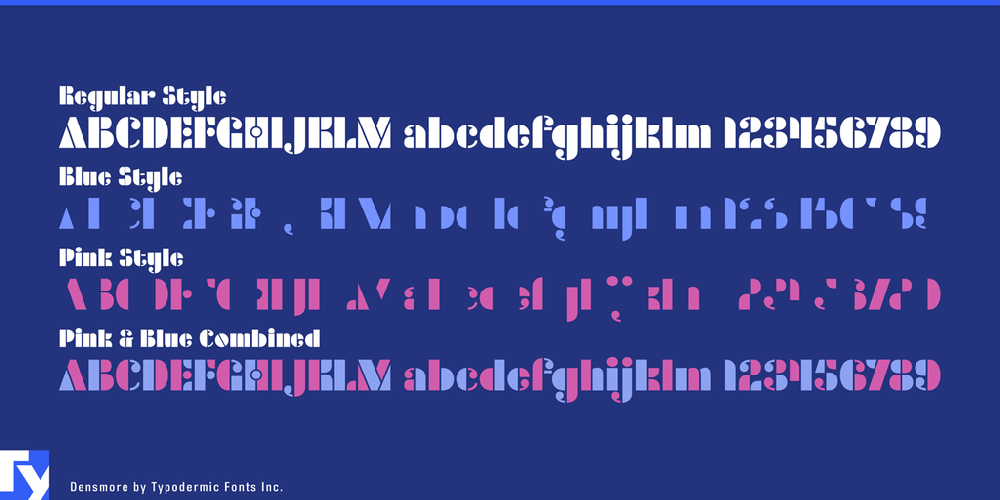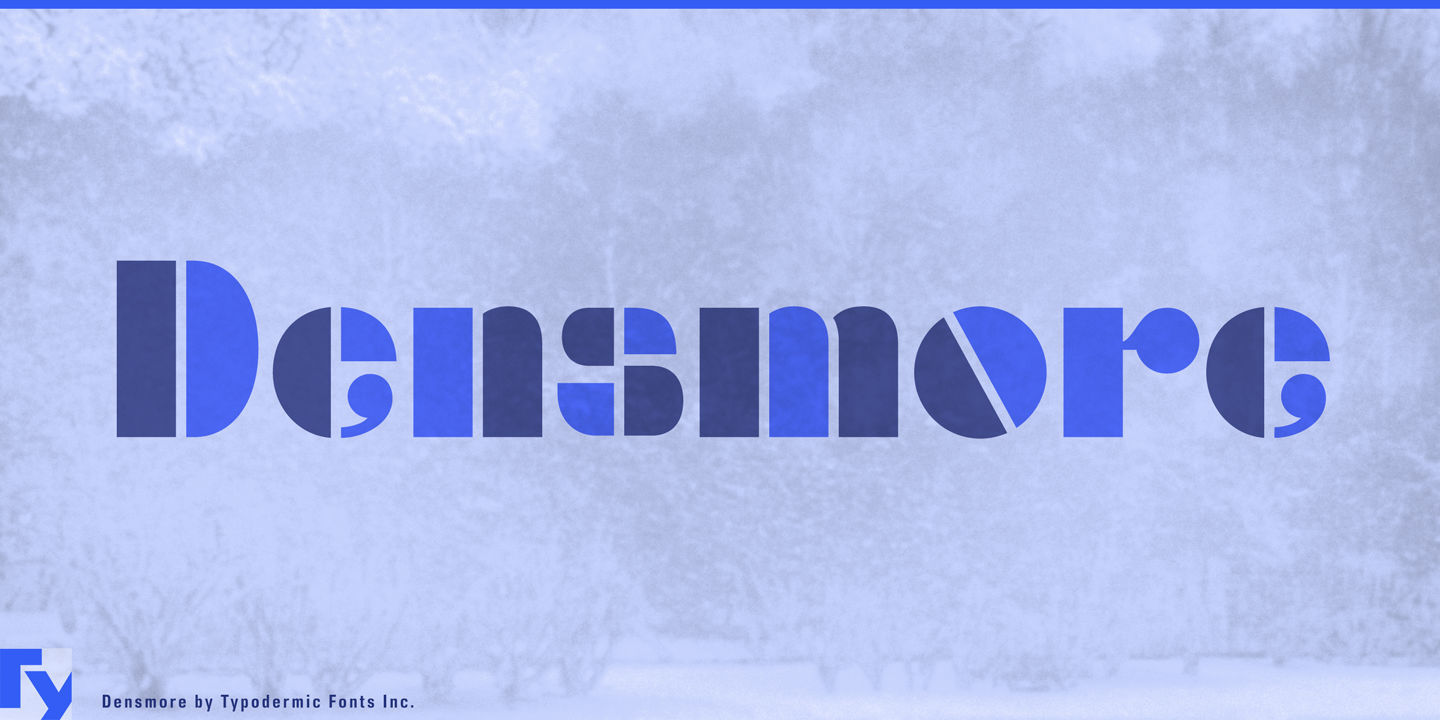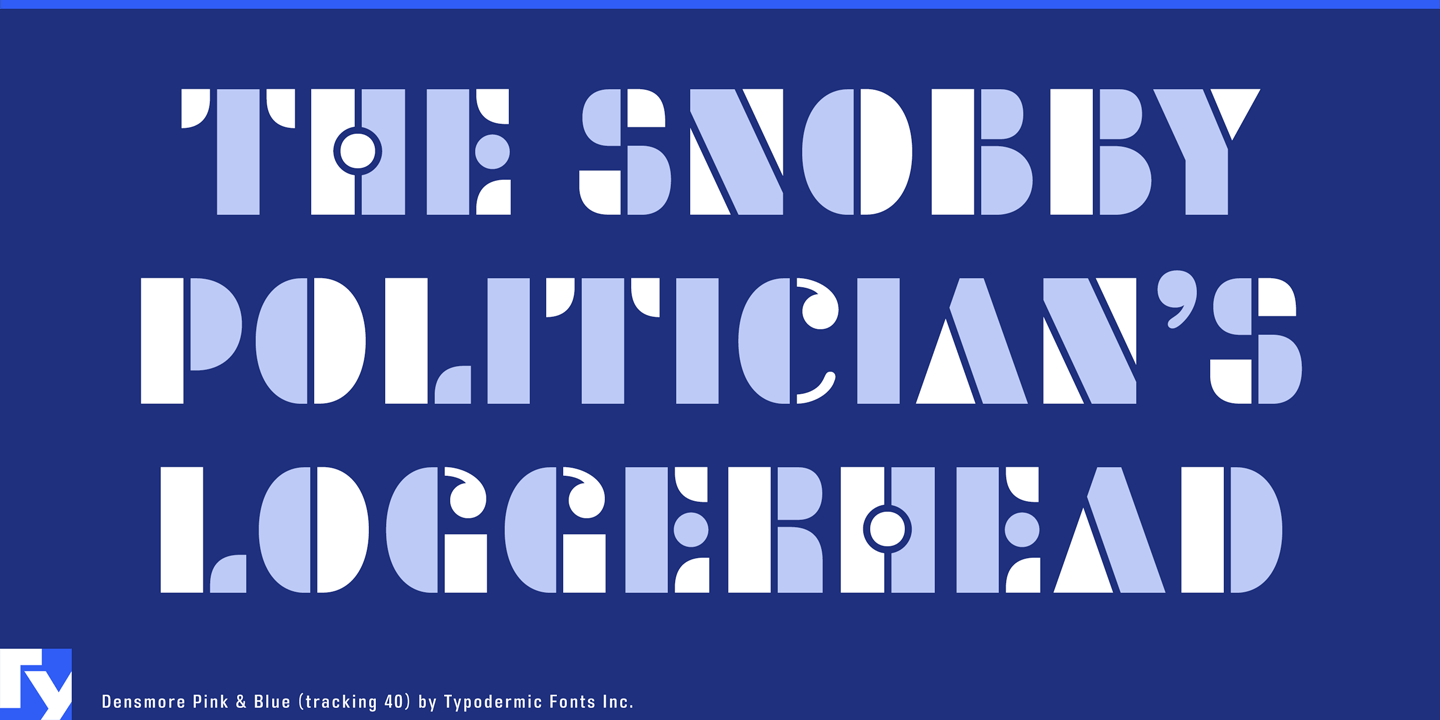
Densmore Font . Densmore by typodermic fonts is a ttf available for mac & pc. In applications which support ligatures, a double lowercase “o”. Densmore font download is available free from fontget. Densmore font is free for both personel and commercial usages. Densmore is a font inspired by the logo of the rock band the doors, created with circle and rectangle shapes. The densmore font has been downloaded 17,111 times. Densmore is a fancy type font that can be used. Densmore font has been downloaded (75) times. Densmore is a free font for commercial use created by raymond larabie. Download and install the densmore font by typodermic fonts.
Densmore by typodermic fonts is a ttf available for mac & pc. In applications which support ligatures, a double lowercase “o”. Densmore is a free font for commercial use created by raymond larabie. The densmore font has been downloaded 17,111 times. Densmore font is free for both personel and commercial usages. Densmore is a fancy type font that can be used. Densmore font download is available free from fontget. Densmore is a font inspired by the logo of the rock band the doors, created with circle and rectangle shapes. Densmore font has been downloaded (75) times. Download and install the densmore font by typodermic fonts.
Densmore Font Densmore is a font inspired by the logo of the rock band the doors, created with circle and rectangle shapes. Download and install the densmore font by typodermic fonts. Densmore font download is available free from fontget. Densmore font has been downloaded (75) times. Densmore font is free for both personel and commercial usages. Densmore is a free font for commercial use created by raymond larabie. Densmore is a font inspired by the logo of the rock band the doors, created with circle and rectangle shapes. Densmore by typodermic fonts is a ttf available for mac & pc. In applications which support ligatures, a double lowercase “o”. The densmore font has been downloaded 17,111 times. Densmore is a fancy type font that can be used.
Densmore Machine Embroidery Font Now Includes BX Files! Densmore Font Densmore is a font inspired by the logo of the rock band the doors, created with circle and rectangle shapes. Densmore font is free for both personel and commercial usages. Densmore font has been downloaded (75) times. The densmore font has been downloaded 17,111 times. In applications which support ligatures, a double lowercase “o”. Download and install the densmore font. Densmore Font.
Densmore Font · 1001 Fonts Densmore Font Densmore by typodermic fonts is a ttf available for mac & pc. Download and install the densmore font by typodermic fonts. Densmore is a font inspired by the logo of the rock band the doors, created with circle and rectangle shapes. The densmore font has been downloaded 17,111 times. Densmore is a free font for commercial use created by raymond. Densmore Font.
Densmore Font · 1001 Fonts Densmore Font Densmore font download is available free from fontget. In applications which support ligatures, a double lowercase “o”. Densmore font is free for both personel and commercial usages. Download and install the densmore font by typodermic fonts. Densmore font has been downloaded (75) times. Densmore is a free font for commercial use created by raymond larabie. Densmore is a font inspired. Densmore Font.
Download free Densmore Regular font densmore.ttf Densmore Font Densmore is a font inspired by the logo of the rock band the doors, created with circle and rectangle shapes. Densmore font download is available free from fontget. Densmore font is free for both personel and commercial usages. In applications which support ligatures, a double lowercase “o”. Densmore by typodermic fonts is a ttf available for mac & pc. Densmore. Densmore Font.
Densmore Font Download (The Doors Font) Fonts4Free Densmore Font Densmore font download is available free from fontget. Densmore font is free for both personel and commercial usages. Densmore by typodermic fonts is a ttf available for mac & pc. Download and install the densmore font by typodermic fonts. Densmore font has been downloaded (75) times. In applications which support ligatures, a double lowercase “o”. The densmore font has been. Densmore Font.
Densmore font by Larabie Fonts FontRiver Densmore Font Densmore is a font inspired by the logo of the rock band the doors, created with circle and rectangle shapes. Densmore by typodermic fonts is a ttf available for mac & pc. Densmore font download is available free from fontget. In applications which support ligatures, a double lowercase “o”. Densmore is a free font for commercial use created by raymond. Densmore Font.